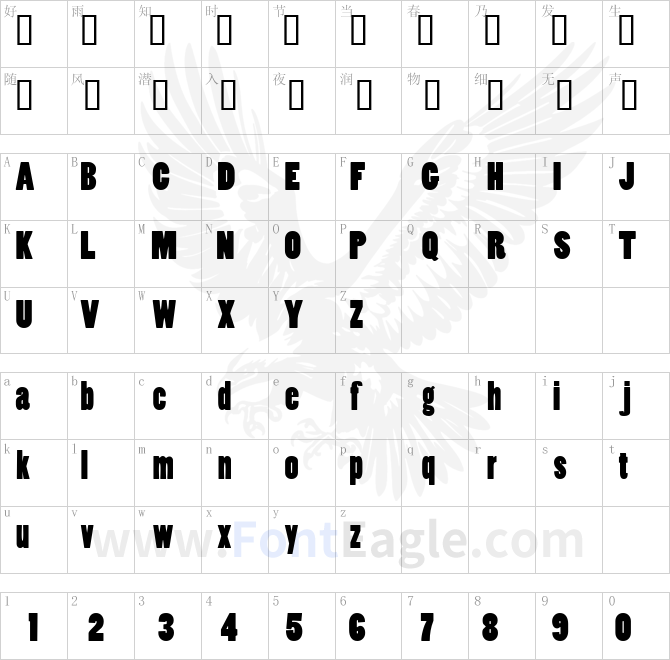
- Font name:SlotSSK
- Font Subfamily ID:Macromedia Fontographer 4.1 SlotSSK Bold
- Font Full Name:SlotSSK Bold
- Font Version:Macromedia Fontographer 4.1 8/8/95
- Postscript:SlotSSKBold